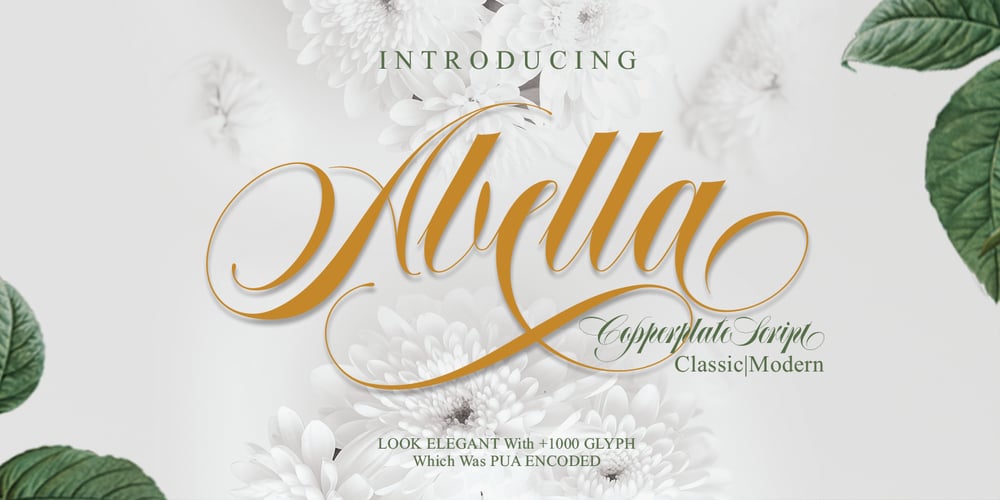
Abella Script Font Family was designed by Joelmaker and published by Joelmaker. Abella Script contains 1 styles and family package options. Abella Script, is a calligraphy manuscript, handwritten modern and classic, so soft, perfect for your next design, such as logos, printed quotes, invitations, cards, product packaging, headers and anything else about your imagination. Abella Script allows you to create custom dynamic text. you can access by turning on; Stylistic Alternates, Swash, as well as ligatures in Photoshop, Adobe Illustrator, Adobe InDesign or through a panel of glyphs such as Adobe Illustrator, Photoshop CC, Let’s switch from the regular character into character alternative to get the text with the layout of your dreams. Abella Script features 1000 glyphs and has given PUA encoded (specially coded fonts), with tons of alternate characters. The pack can be accessed in full by any crafter or designer, without the requirement for extra design software. Language Support Albanian, Basque, Breton, Chamorro, Danish, Dutch, English, Faroese, Finnish, French, Frisian, Galician, German, Icelandic, Italian, Malagasy, Norwegian, Portuguese, Spanish, Swedish.